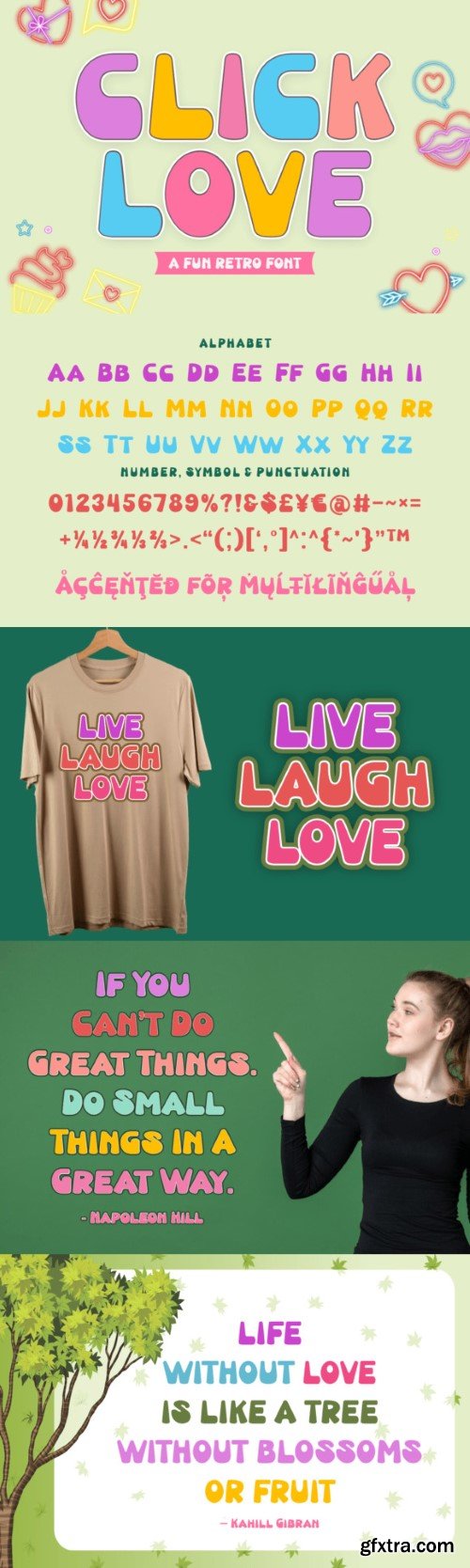
点击爱Font
Click Love is a fun and lively retro font that brings a touch of playfulness to your designs. With its vibrant and nostalgic style, this font is perfect for adding a cheerful vibe to any project. Whether you’re working on invitations, posters, or social media graphics, Click Love’s whimsical charm and retro flair make it a delightful choice. Click into a world of fun and creativity with this lively font that effortlessly captures the spirit of joyful nostalgia.